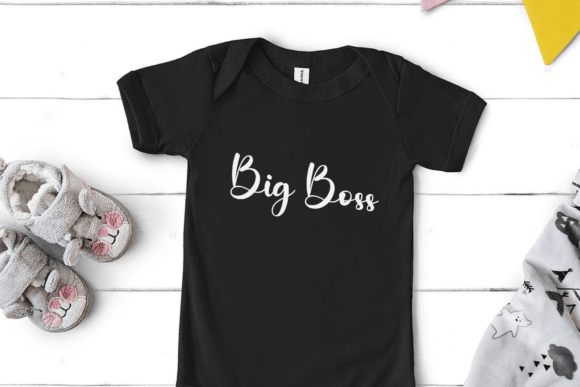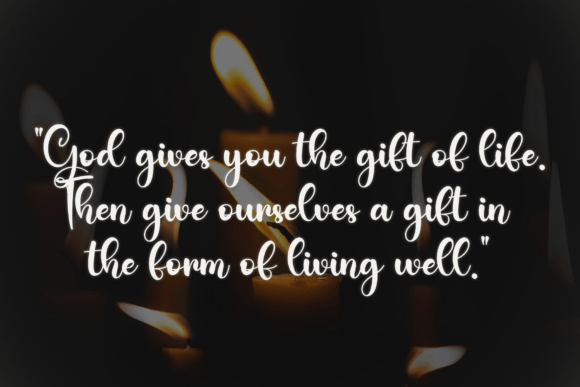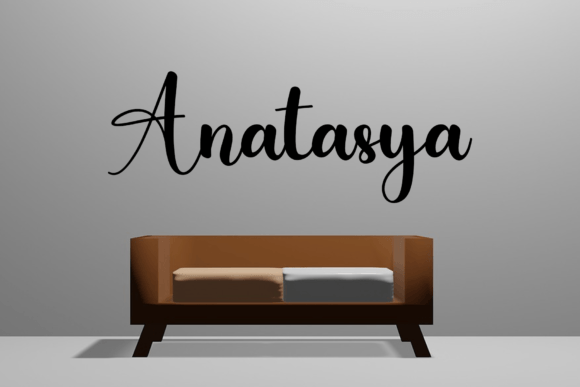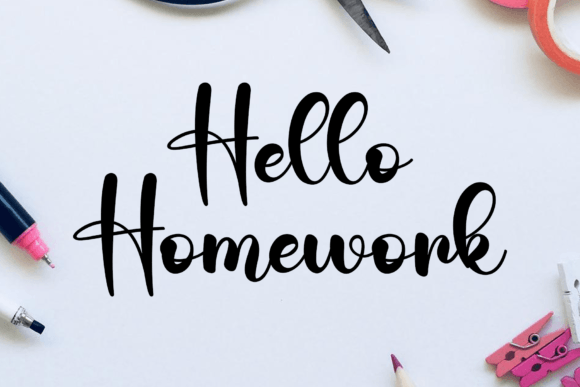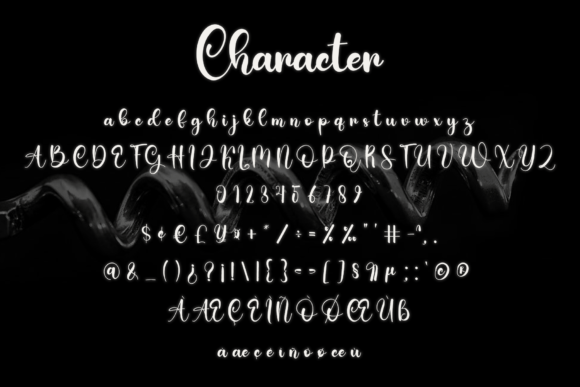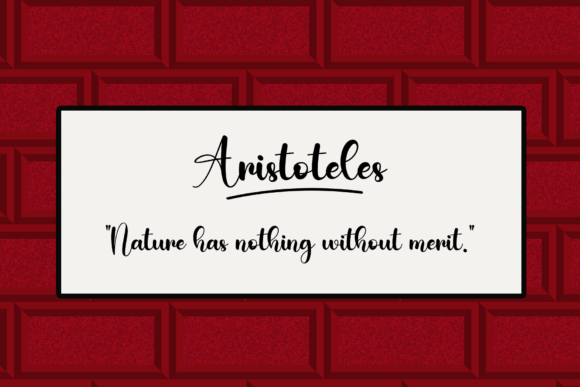
Crown Font: Elevate Your Designs with a Touch of Royalty
In the world of typography, fonts play a crucial role in conveying the tone and personality of a design. For designers and crafters looking to add a dash of sophistication and elegance to their creations, the Crown Font is an excellent choice. This unique, round-lettered handwritten font is carefully crafted to give your designs the desired effect, making them stand out from the crowd.
What is Crown Font?
Crown Font is a distinctive, hand-crafted typeface that exudes a sense of luxury and refinement. Its rounded letters and fluid curves create a soft, yet regal appearance that is perfect for a variety of design applications. Whether you’re working on a title, invitation, letter, or any other project, Crown Font is sure to add a touch of royalty to your designs.
Key Features of Crown Font
- Unique Round-Lettered Design: Crown Font boasts a distinctive round-lettered design that sets it apart from other fonts.
- Handwritten Style: The font’s handwritten style adds a personal touch to your designs, making them more approachable and engaging.
- Elegant and Sophisticated: Crown Font’s elegant and sophisticated appearance makes it perfect for designs that require a touch of luxury.
- Versatile: The font’s versatility allows you to use it in a variety of design applications, from titles and invitations to letters and more.
Uses of Crown Font
Crown Font is an incredibly versatile typeface that can be used in a wide range of design applications. Here are some ideas to get you started:
- Titles and Headings: Use Crown Font to create eye-catching titles and headings that demand attention.
- Invitations and Announcements: Add a touch of elegance to your invitations and announcements with Crown Font.
- Letters and Correspondence: Use Crown Font to add a personal touch to your letters and correspondence.
- Branding and Packaging: Crown Font can be used to create luxurious branding and packaging designs that stand out from the competition.
- Digital and Print Media: The font is suitable for use in both digital and print media, making it a great addition to your design arsenal.
Why Choose Crown Font?
With so many fonts available, why choose Crown Font? Here are just a few reasons:
- Unique Design: Crown Font’s unique design ensures that your designs will stand out from the crowd.
- High-Quality: Crown Font is a high-quality font that is designed to produce crisp, clear results.
Tips for Using Crown Font
To get the most out of Crown Font, here are a few tips:
- Experiment with Sizes: Try using Crown Font in different sizes to create visual interest and hierarchy.
- Pair with Other Fonts: Experiment with pairing Crown Font with other fonts to create a unique and harmonious design.
- Use on Dark Backgrounds: Crown Font looks stunning on dark backgrounds, so don’t be afraid to try it out.
- Keep it Simple: Don’t overcomplicate your design – Crown Font is perfect for simple, elegant designs.
In conclusion, Crown Font is a unique and elegant typeface that is perfect for designers and crafters looking to add a touch of sophistication to their designs. With its round-lettered design, handwritten style, and versatile uses, Crown Font is an excellent choice for a wide range of design applications. Whether you’re working on a title, invitation, letter, or any other project, Crown Font is sure to elevate your designs to the next level.